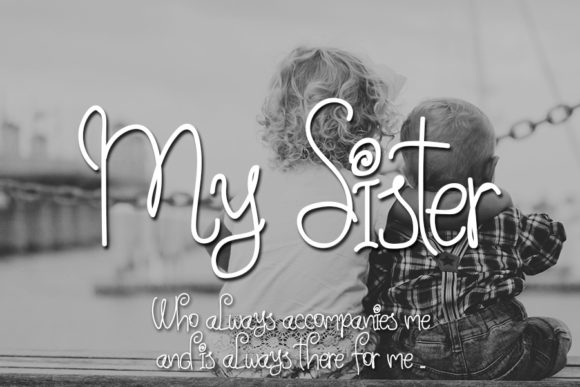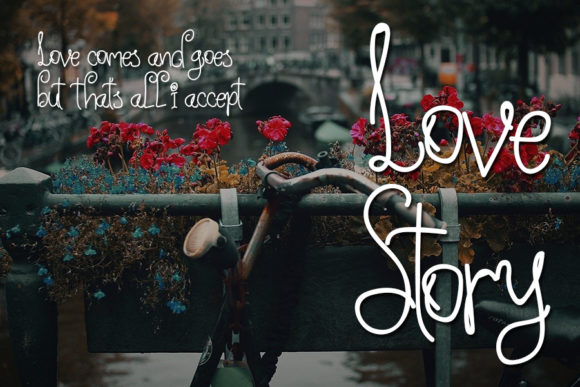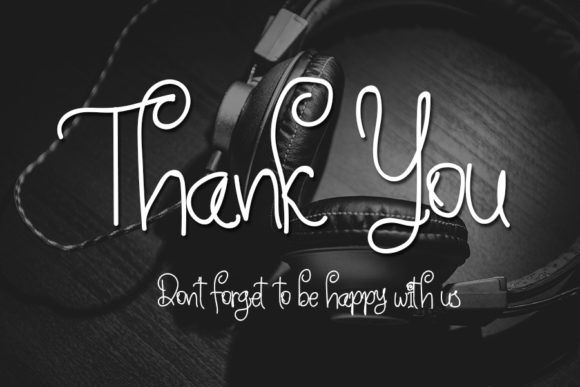
Bettering Font: Elevate Your Designs with a Stylish and Delicate Script Font
Are you looking for a font that can add a touch of elegance and sophistication to your designs? Look no further than Bettering Font, a stylish, round lettered, and delicate script font that’s perfect for a wide range of design projects. With its clean, thin, and smooth vibe, Bettering Font is sure to be a hit with designers and crafters alike.
What Makes Bettering Font So Special?
Bettering Font is a unique and versatile font that’s designed to add a touch of class and sophistication to any design. Its round lettered and delicate script style gives it a distinctive look that’s both elegant and refined. The font’s clean and thin lines make it perfect for use in a variety of design projects, from wedding invitations and party decorations to branding and advertising materials.
Key Features of Bettering Font
- Stylish and Delicate Script Style: Bettering Font features a beautiful, flowing script style that’s perfect for adding a touch of elegance to your designs.
- Clean and Thin Lines: The font’s clean and thin lines make it perfect for use in a wide range of design projects, from digital designs to print materials.
- Round Lettered: The font’s round lettered style gives it a distinctive look that’s both elegant and refined.
- Smooth Vibe: Bettering Font has a smooth and refined vibe that’s perfect for adding a touch of sophistication to your designs.
Bettering Font is a stylish, round lettered, and delicate script font that’s perfect for adding a touch of elegance and sophistication to your designs. With its clean, thin, and smooth vibe, it’s sure to be a hit with designers and crafters alike. Whether you’re working on a wedding invitation, a branding project, or a digital design, Bettering Font is a great choice.